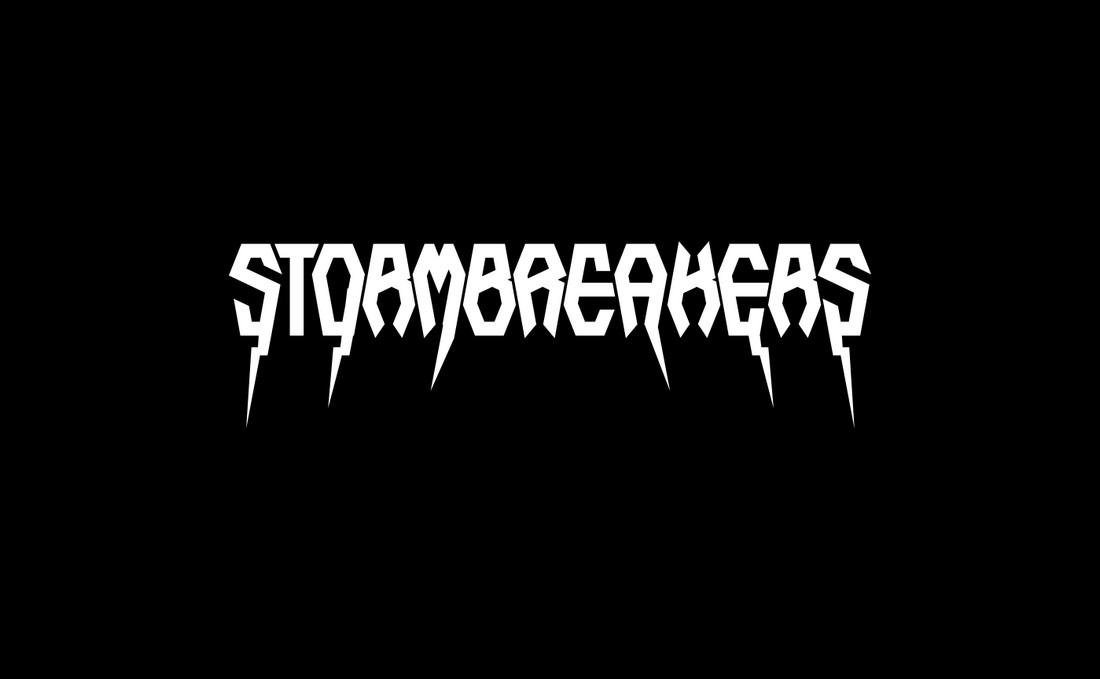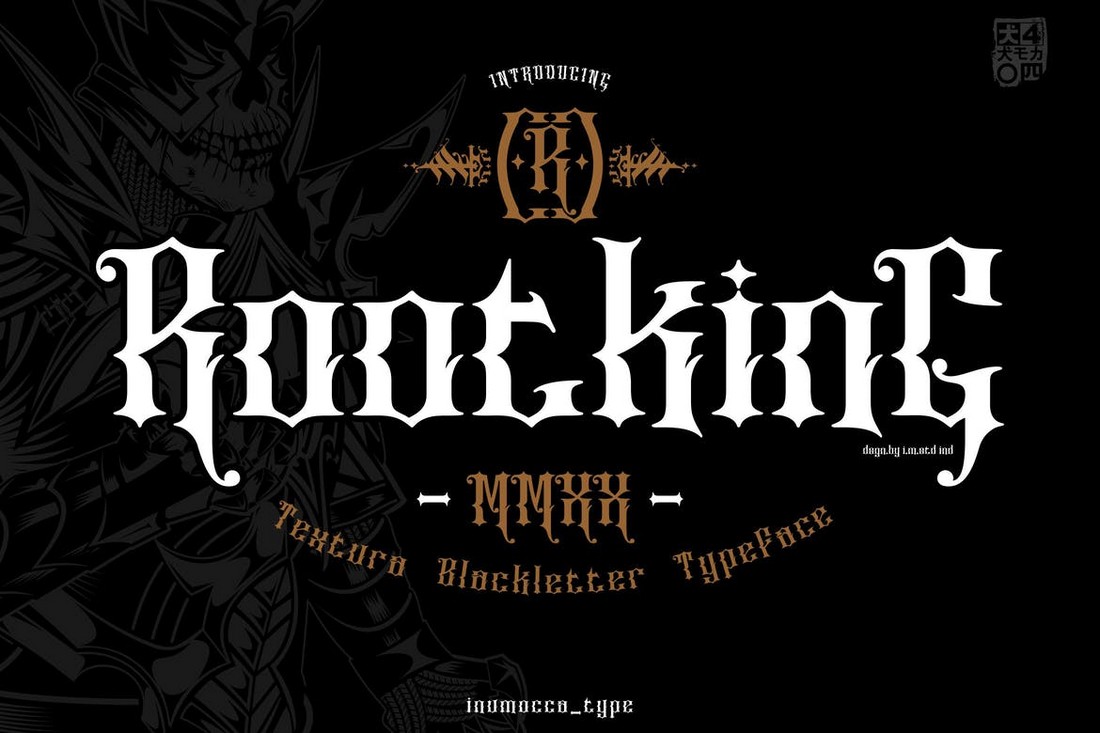
25+ Best Heavy Metal Fonts (for Death Metal, Thrash Metal Bands + More)
One of the main elements that defined the heavy metal music genre is the use of blackletter fonts in the band logos. Just by looking at the font, you could tell which genre a band belongs to.
Even today, it’s like a tradition to use a blackletter font to design anything related to metal music. We want you to continue this tradition so we brought a collection of incredible metal fonts to download.
In this collection, we feature some of the best fonts you can use to design logos, flyers, T-shirts, and posters related to heavy metal, death metal, thrash metal, and all kinds of metal bands. Have a look.
Dramaga – Heavy Metal Font
At first glance, this font will immediately remind you of classic heavy metal bands like Metallica. It resembles the same iconic letter design from the old-school metal band logos but with its own unique look. The font features many swashes and ligatures to add more styling to your own designs as well.
Black Cameo – Heavy & Death Metal Font
Black Cameo is a blackletter font that comes with unique ornaments. It puts a modern spin on the classic heavy metal font designs and allows you to create more unique logos and titles for all heavy metal and death metal projects. The font supports both uppercase and lowercase letters.
Huntly – Metal Band Blackletter Font
Huntly is another heavy metal-inspired blackletter font you can use to craft all kinds of designs related to metal bands. The font includes many OpenType features that will help you make stylish and more distinctive designs.
Smackdead – Black Metal Font
The design of this font truly lives up to its name. It features a more terrifying-looking letter design like something out of a horror movie. This makes the font a great choice for a death metal band or designing anything related to the genre. It includes uppercase and lowercase letters with punctuations.
DEATH CROW – Metal Band Font
Death Crow is a unique font that features a gothic blackletter design. This font is perfect for all kinds of metal bands and music designs. It also includes 2 alternates for adding stylistic elements to your logos and title designs.
Metal Curve – Free Heavy Metal Font
This is a free font that comes with a letter design inspired by the iconic heavy metal bands. It looks perfect for all sorts of metal music designs. The font is free to use with your personal projects.
Death Crow – Black Metal Font
Death Crow is a gothic metal style that allows you to use this font to enhance your illustration designs, logos, bands, etc.
Nightcrow – Death Metal Font
Night Crow is a death metal font. This font is inspired by underground and metal music band logo styles. Night Crow is suitable for death metal music, underground, hardcore music, blackletter, death metal logo design, clothing, logos, music covers, posters, or other designs with the theme death metal.
Black Magnet – Metal Font
Black Magnet is great-looking, badass, and each character was designed with great composition. Of course, this font is very suitable for those who like death metal music, design, clothing, logo, and similar designs.
Mask Death – Metal Font
Mask Death is a bold, distinct and elegant metal blackletter font. Add it confidently to your projects, and you will love the results.
Coffin – Free Death Metal Font
Just as the name suggests, this font comes with a very creepy and scary style of letter design. And it also has stylistic elements that resemble the Metallica logo as well. You can download and use this font free of charge.
Distorsi – Heavy Metal Blackletter Font
Another great blackletter font with a letter design inspired by classic heavy metal bands. This font features a clean and iconic metal music design that, unlike most other heavy metal fonts, is also quite easier to read. It supports uppercase and lowercase letters as well as multilingual characters.
ROOTKING – Black Metal Band Font
Rootking is a unique heavy metal font that comes with a modern letter design. What makes this font quite special is its ornaments font, which includes lots of heavy and black metal-themed ornaments you can use to add stylish elements to your logo designs.
Black Orchestra – Heavy Death Metal Font
Inspired by old-school heavy death metal music from the 1980s, this font comes with a unique letter design unlike any other font on our list. It has a very unusual distressed letter design that will fit in perfectly with death metal and thrash metal bands.
Malcolm Naville – Metal Band Blackletter Font
The vintage-themed gothic blackletter design of this font gives its own unique personality. You can use it to design various death metal and heavy metal band logos. As well as titles for posters, T-shirts, flyers, and much more.
Grandice – Heavy Metal Font
If you’re looking for a heavy font to design an album cover or a poster, Grandice is the perfect font for you. It comes with a stylish design featuring a mix of modern and gothic blackletter design elements. The font includes uppercase and lowercase letters as well as stylistic alternate characters.
Glaive – Metal Band Font
Glaive is a thick and bold heavy metal font that features a very rough-looking design. This font comes with an alternate set of characters that you can enable with the Capslock to add meaner-looking characters for your metal music designs.
Endma – Gothic Heavy Metal Font
Endma is a gothic blackletter font that has the perfect character design for a heavy metal band logo and merchandise. This font is also an all-caps font that includes an alternate set of characters.